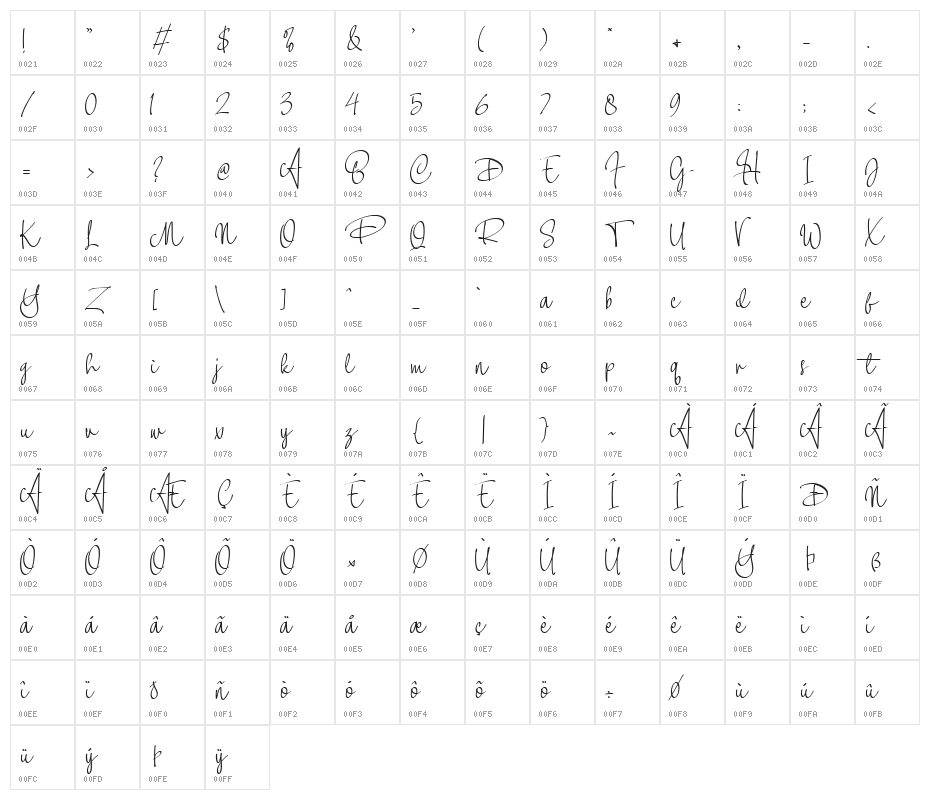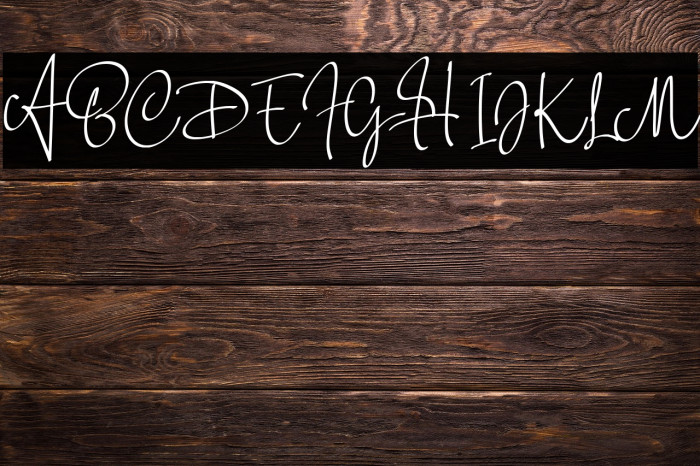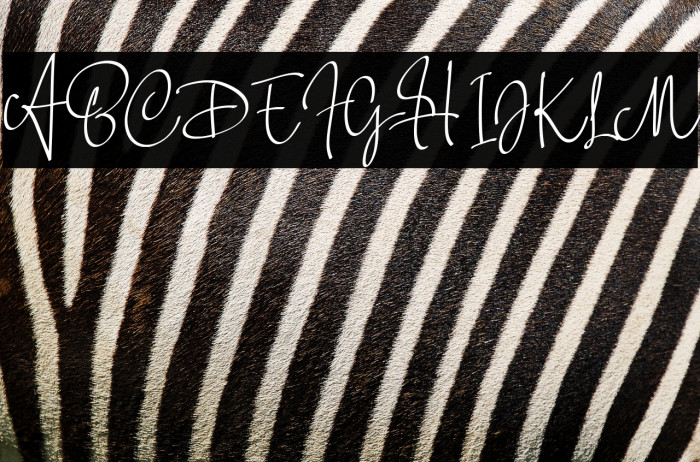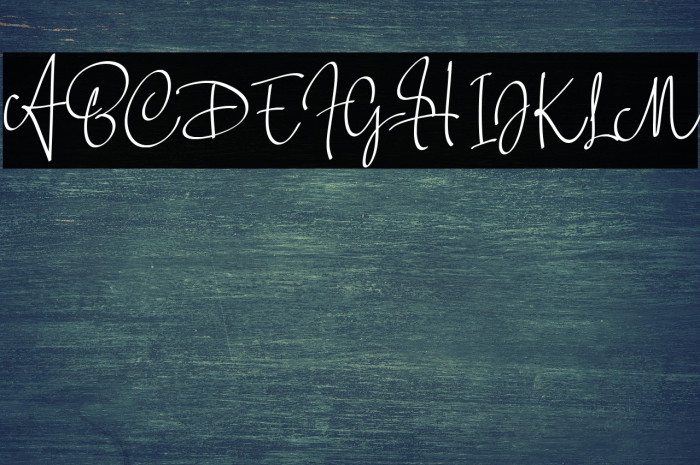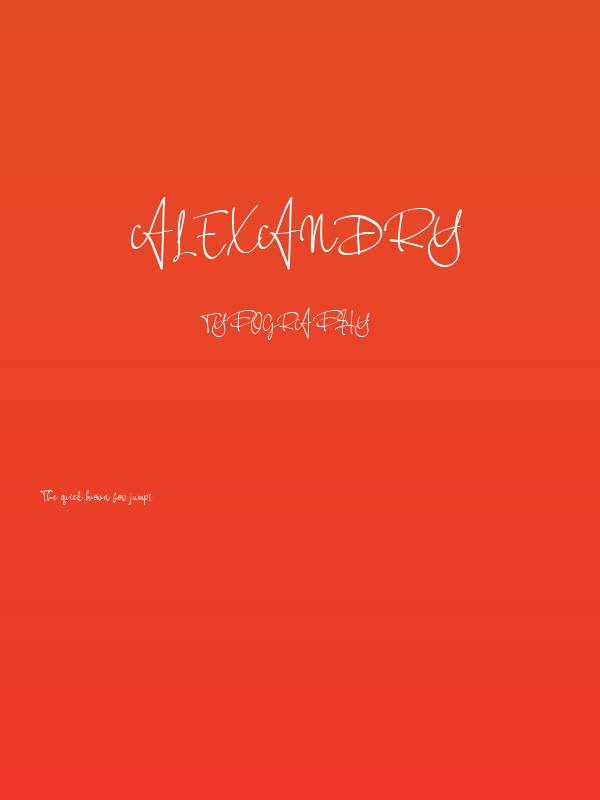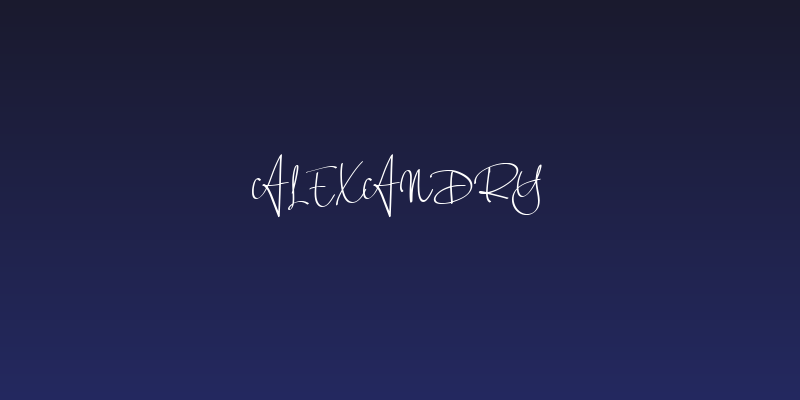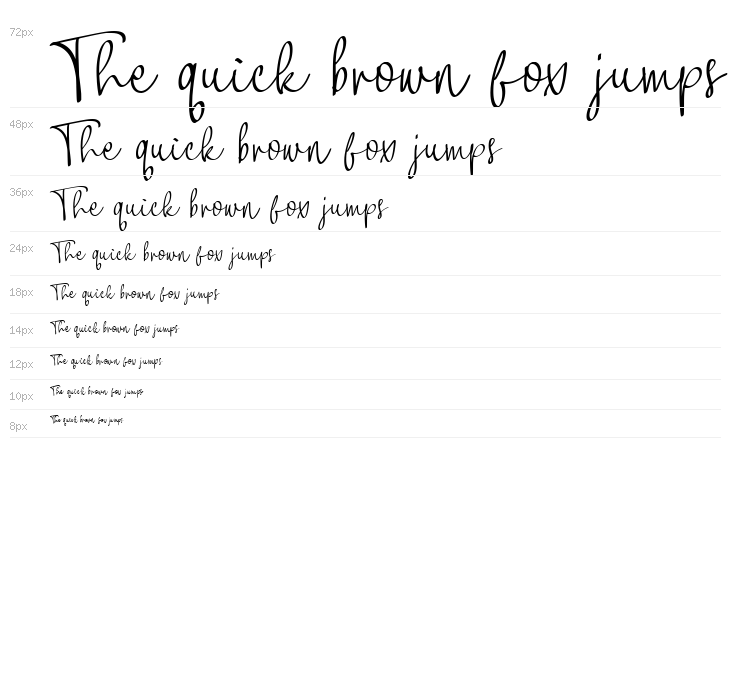
Alexandry Font
Alexandry Description
This font features an elegant and flowing script style, characterized by its smooth, cursive strokes and graceful curves. The uppercase letters are distinct with a sophisticated flair, while the lowercase letters maintain a consistent, fluid motion. Numbers and special characters are crafted with the same attention to detail, ensuring a cohesive look across all glyphs. The overall design exudes a sense of elegance and refinement, making it suitable for projects that require a touch of class and sophistication. The font's legibility is maintained despite its decorative nature, making it versatile for various applications.
| Overall Style | Elegant, Decorative |
| Use Case | Logos, Invitations, Decorative Text |
| Proposed Projects | Ideal for wedding invitations, elegant branding, greeting cards, and upscale packaging. |